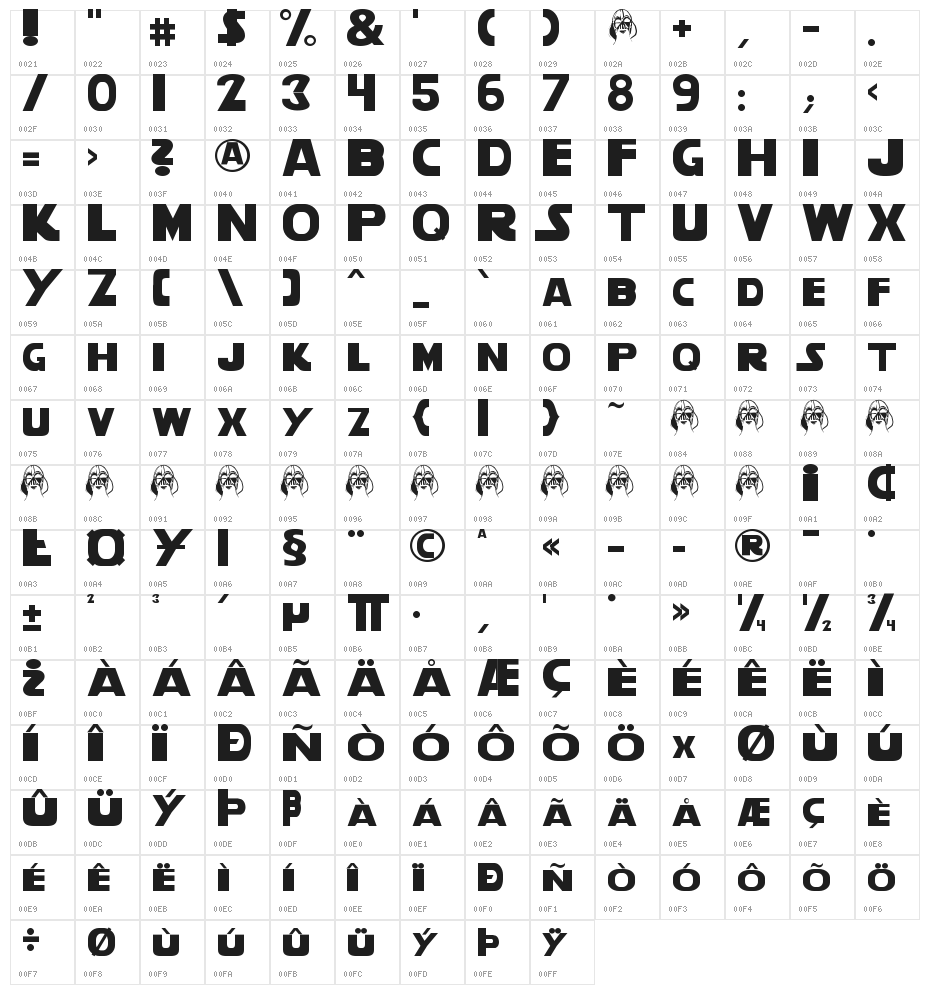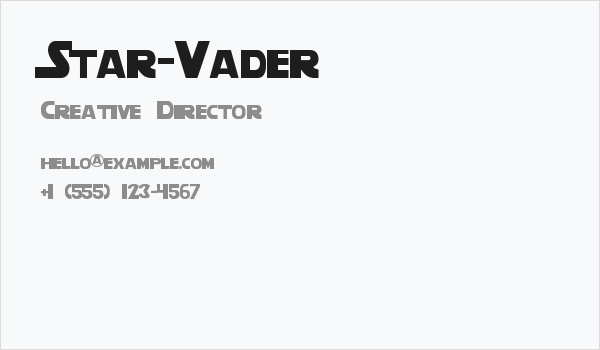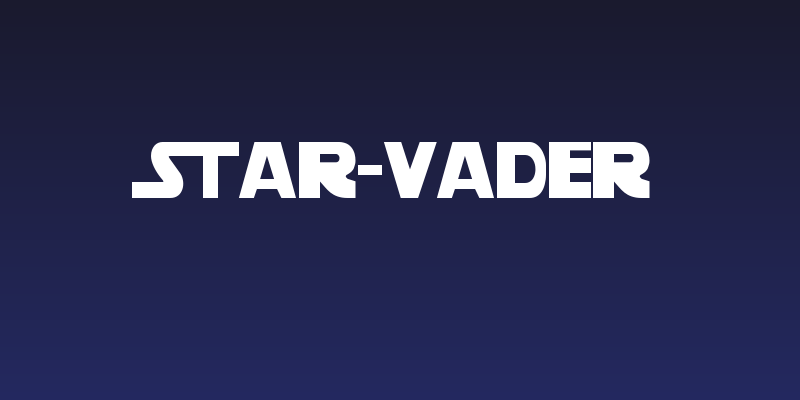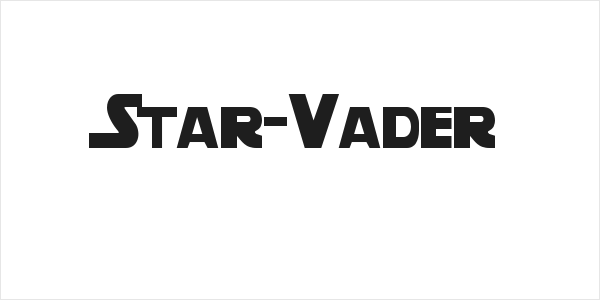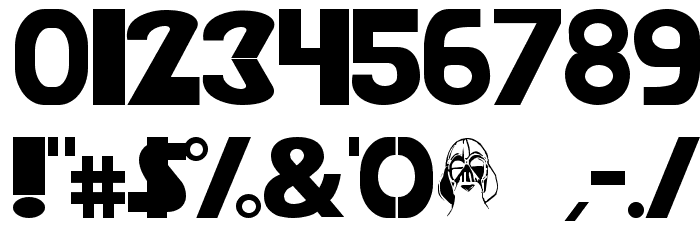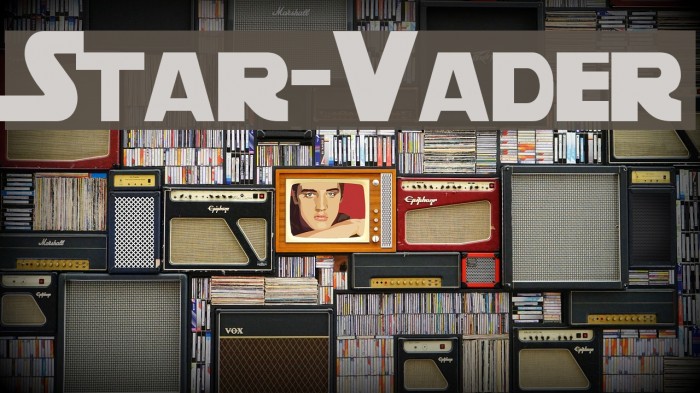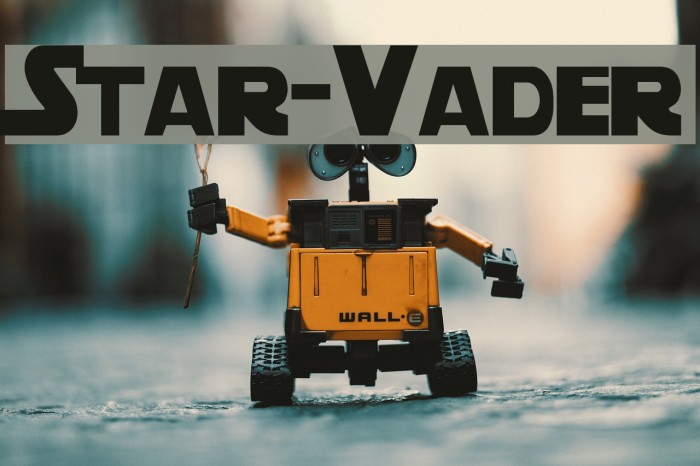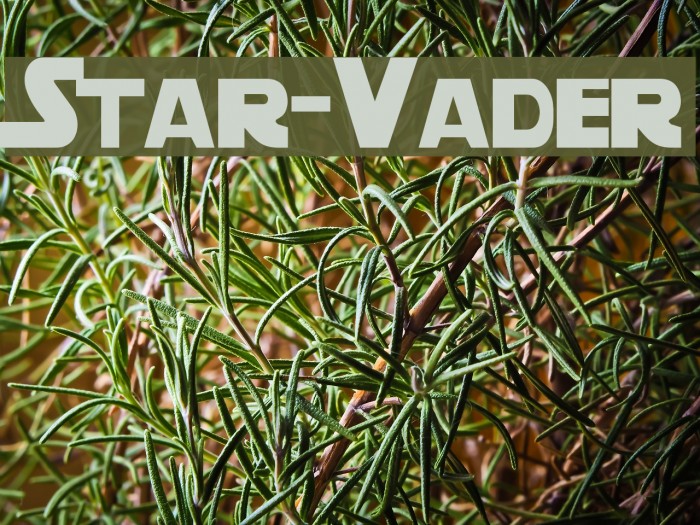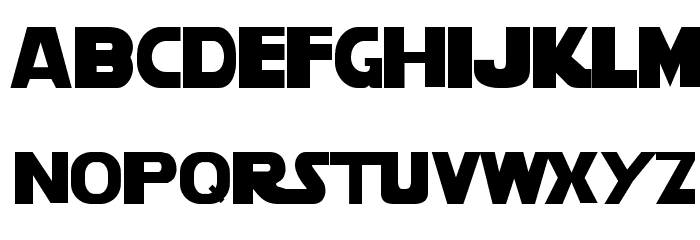
Star-Vader Font
Star-Vader Description
This font features a bold and futuristic design, characterized by its strong, geometric shapes and sharp angles. The uppercase letters are particularly striking, with a solid, block-like appearance that conveys strength and modernity. The lowercase letters maintain this boldness, ensuring consistency throughout the typeface. The numerals are equally robust, designed to stand out with their thick strokes. Special characters are included, adding versatility to the font. The overall style is reminiscent of science fiction themes, making it ideal for projects that require a modern and impactful look.
| Proposed Projects | Ideal for sci-fi themed posters, video game titles, movie logos, and branding that requires a modern, bold aesthetic. |